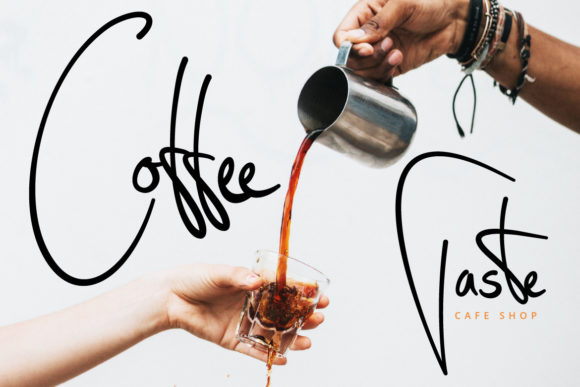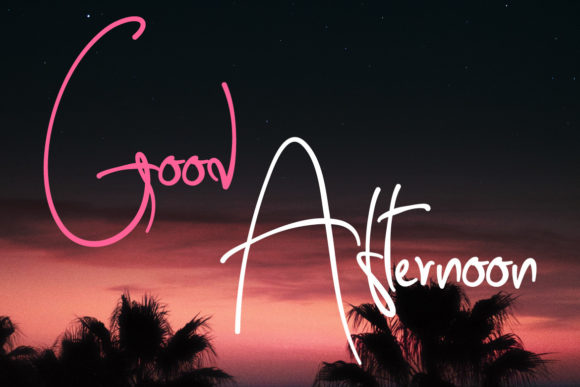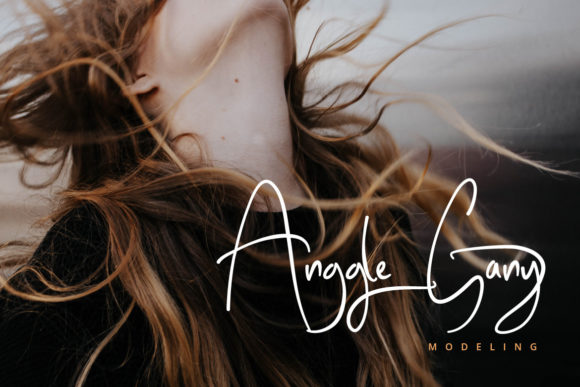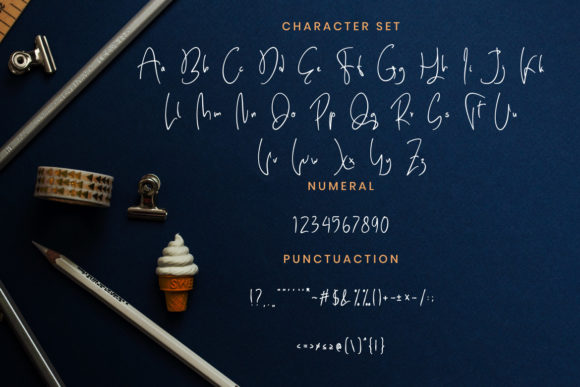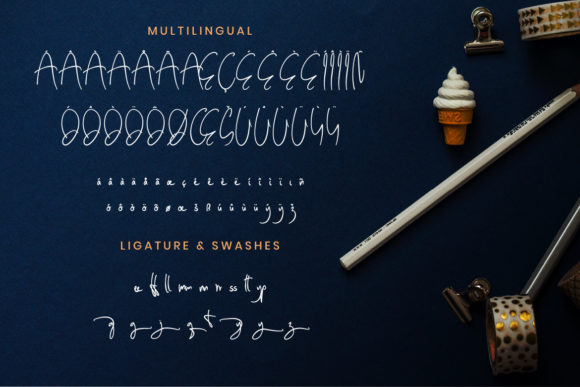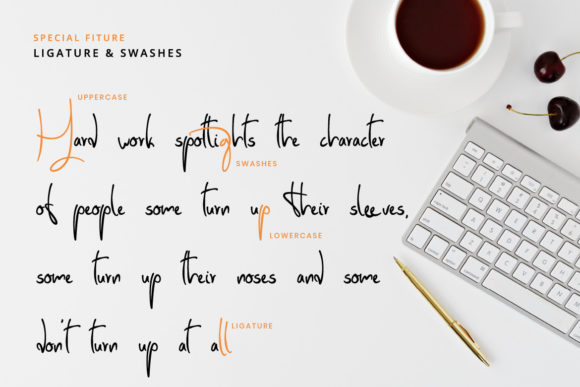
Batley Font: Elevate Your Designs with Delicate Elegance
In the world of typography, a font can make or break a design. For designers and crafters seeking to add a touch of sophistication and elegance to their projects, the Batley Font is an excellent choice. This beautiful, handwritten font is characterized by its delicate, flowing lines and well-balanced characters, making it an ideal match for a wide range of designs.
The Beauty of Batley Font
Batley Font is a stunning example of handwritten typography. Its elegant and flowing script is perfect for adding a touch of refinement to any design. The font’s delicate lines and curves create a sense of movement and fluidity, making it perfect for designs that require a sense of dynamism. Whether you’re working on a logo, a poster, or a digital project, Batley Font is sure to impress.
Key Features of Batley Font
- Delicate and elegant design: Batley Font boasts a beautiful, handwritten script that exudes sophistication and refinement.
- Well-balanced characters: Each character in the Batley Font is carefully crafted to ensure balance and harmony, making it perfect for a wide range of designs.
- Flowing lines: The font’s flowing lines create a sense of movement and fluidity, adding a touch of dynamism to any design.
- Versatile: Batley Font matches a wide pool of designs, making it an excellent choice for designers and crafters who want a font that can adapt to different styles and themes.
Why Choose Batley Font?
So, why should you choose Batley Font for your next design project? Here are just a few reasons:
- Adds elegance and sophistication: Batley Font’s delicate and elegant design adds a touch of refinement to any project, making it perfect for designs that require a sense of luxury or high-end quality.
- Perfect for creative projects: Whether you’re working on a logo, a poster, or a digital project, Batley Font is sure to inspire your creativity and help you bring your ideas to life.
- Easy to read: Despite its elegant design, Batley Font is easy to read, making it perfect for designs that require a clear and concise message.
Using Batley Font in Your Designs
So, how can you use Batley Font in your designs? Here are a few ideas to get you started:
- Logos and branding: Batley Font is perfect for logos and branding projects that require a touch of elegance and sophistication.
- Posters and flyers: Add a touch of refinement to your posters and flyers with Batley Font’s delicate and flowing script.
- Digital projects: Batley Font is perfect for digital projects, such as website headers, social media graphics, and email marketing campaigns.
- Crafting and scrapbooking: Batley Font is also perfect for crafters and scrapbookers who want to add a touch of elegance to their projects.
In conclusion, Batley Font is a beautiful, elegant, and flowing handwritten font that is perfect for designers and crafters seeking to add a touch of sophistication to their projects. With its delicate lines, well-balanced characters, and versatile design, Batley Font is an excellent choice for a wide range of designs. Whether you’re working on a logo, a poster, or a digital project, Batley Font is sure to impress. So why not add it to your most creative ideas and see how it brings them to life?